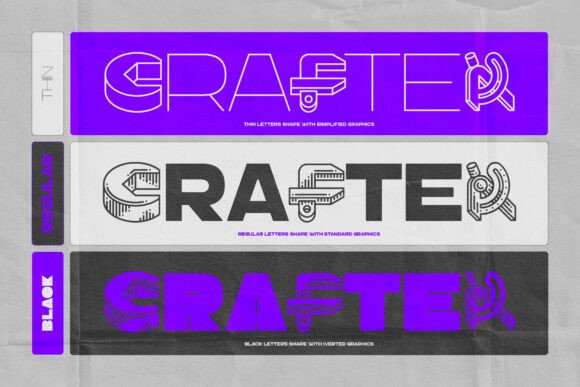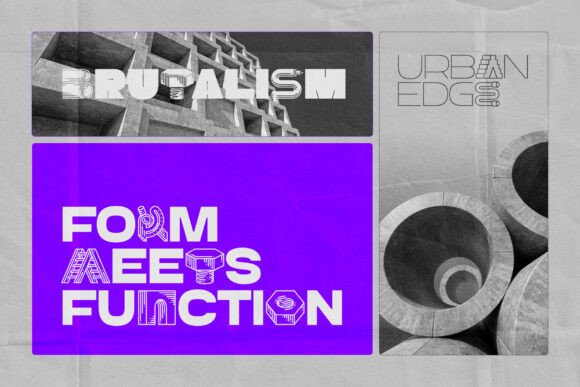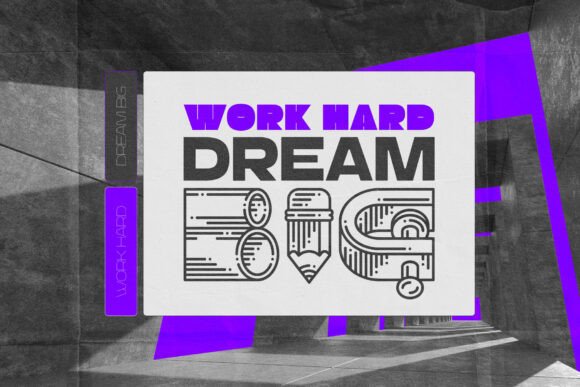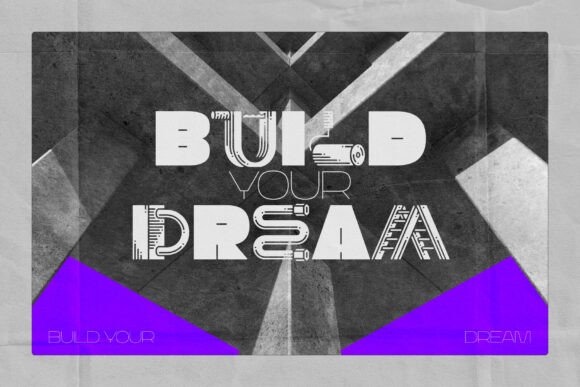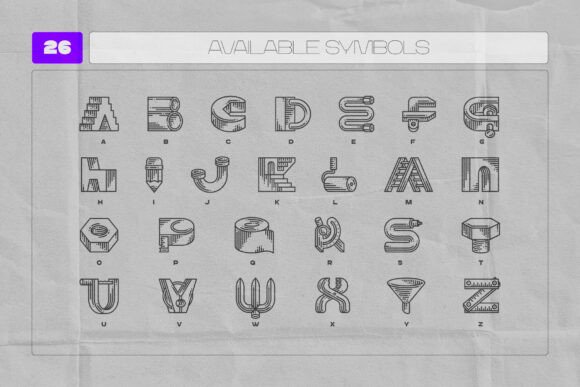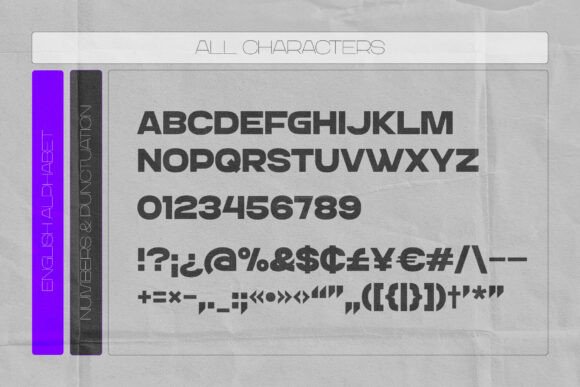
Crafter Tools Font: Elevate Your Designs with Industrial Flair
Are you a designer, crafter, or DIY enthusiast looking for a unique and functional font to add an industrial touch to your projects? Look no further than Crafter Tools, an original font set that combines builder-themed symbols with a sleek, modern aesthetic. In this article, we’ll introduce you to the Crafter Tools font family, explore its features, and show you how to make the most of this versatile font.
What is Crafter Tools Font?
Crafter Tools is a carefully crafted font set that features symbol-like letters related to a builder theme. Each symbol is designed in the shape of a specific letter, making it easy to use and integrate into your designs. The font family includes three typefaces with different weights – Thin, Regular, and Black – providing you with a range of options to suit your creative needs.
Key Features of Crafter Tools Font
• Builder-themed symbols: The font features a range of symbols related to industrial instruments, urban structures, and objects, giving your designs a unique and industrial look.
• Multilingual support: Crafter Tools font has multilingual support, making it suitable for use in a variety of languages and projects.
• Three typefaces: The font family includes three typefaces with different weights – Thin, Regular, and Black – providing you with flexibility and options.
• Symbol-like letters: Each symbol is designed in the shape of a specific letter, making it easy to use and integrate into your designs.
Exploring the Crafter Tools Font Family
The Crafter Tools font family consists of three typefaces: Thin, Regular, and Black. Each typeface has its own unique characteristics and uses:
• Thin: The Thin typeface is perfect for use in titles, headings, and other design elements where a light touch is required.
• Regular: The Regular typeface is ideal for use in body text, paragraphs, and other design elements where a clear and legible font is required.
• Black: The Black typeface is great for use in bold statements, emphasis, and other design elements where a strong impact is required.
Available Characters and Multilingual Support
Crafter Tools font has an extensive range of characters, including letters, numbers, and symbols. The font also has multilingual support, making it suitable for use in a variety of languages and projects. You can check out a screenshot with available characters to see the full range of options.
Using Crafter Tools Font in Your Designs
Crafter Tools font is perfect for use in a variety of design projects, including:
• DIY and crafting projects: Add an industrial touch to your DIY and crafting projects with Crafter Tools font.
• Graphic design: Use Crafter Tools font in your graphic design projects, such as brochures, flyers, and posters.
• Web design: Add a unique and industrial touch to your website with Crafter Tools font.
• Signage and display: Use Crafter Tools font in signage and display projects, such as billboards, banners, and signs.
Author Gleb Guralnyk
Crafter Tools font is a unique and functional font set that combines builder-themed symbols with a sleek, modern aesthetic. With its three typefaces, multilingual support, and extensive range of characters, Crafter Tools font is perfect for use in a variety of design projects. Whether you’re a designer, crafter, or DIY enthusiast, Crafter Tools font is sure to elevate your designs and add an industrial touch.